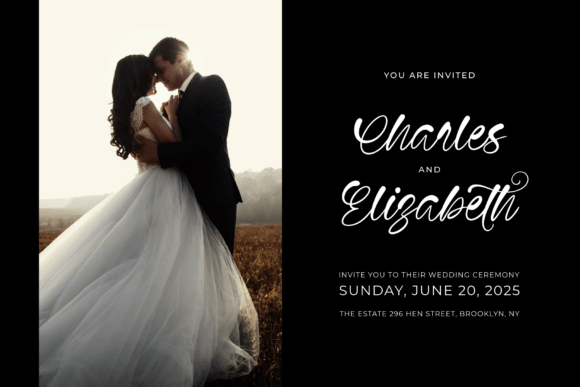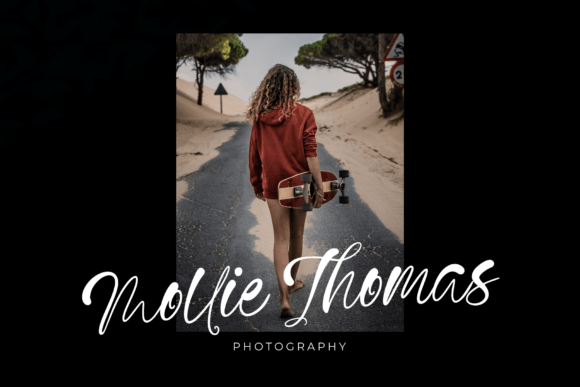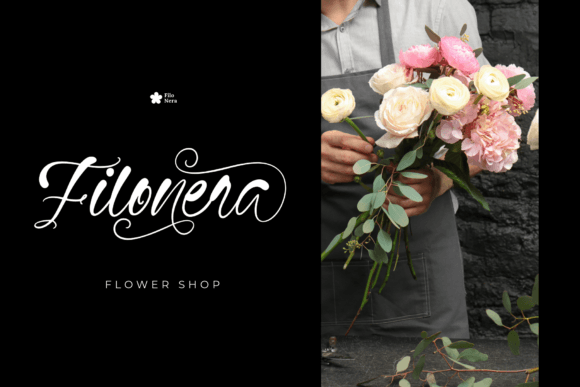
Introduction to Kindelove Font
Welcome to the breathtaking world of Kindelove, a handcrafted font that brilliantly blends sweetness with sophistication.
Infused with elegant swirls and fluid lines, it reinvents the art of handwritten aesthetics, effortlessly elevating your projects with its charming allure Kindelove seamlessly slides through a spectrum of applications, ornating everything from wedding invitations, heartfelt greeting cards to branding elements with its graceful strokes.